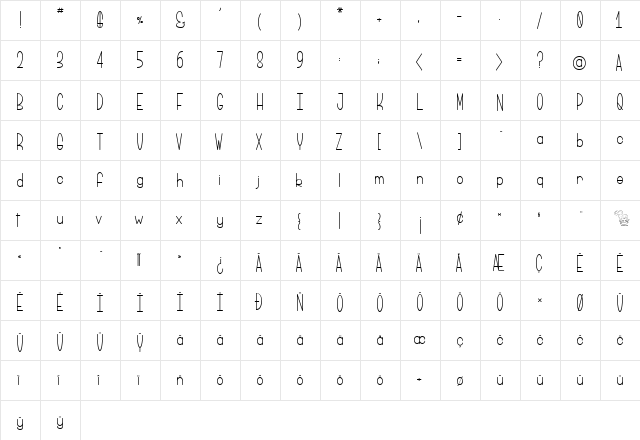
Brioche au Potiron Regular
| Foundry | dcoxy Medina Gregory |
| Designer | dcoxy Medina Gregory |
Design Context for Brioche au Potiron Typeface
Brioche au Potiron offers clean, dependable letterforms without strong stylistic allegiance, making it a practical choice for designers who need flexibility.